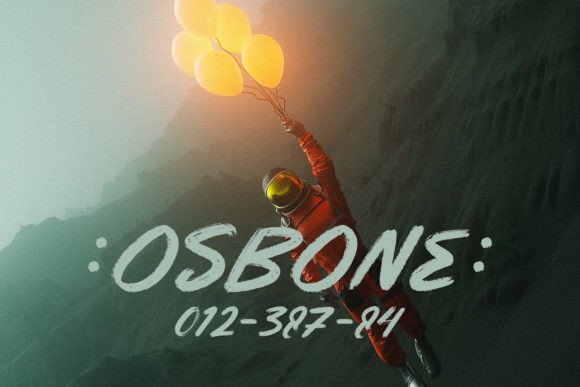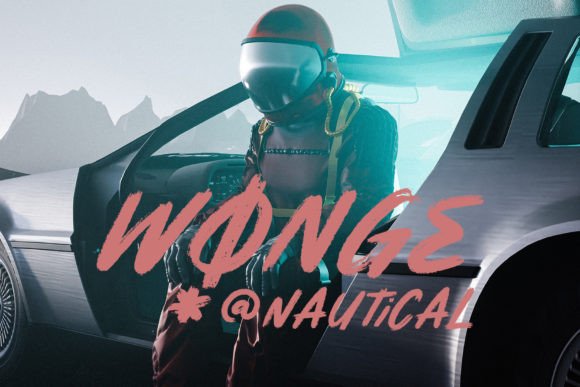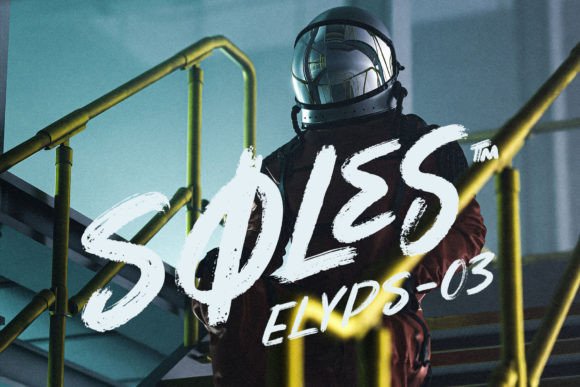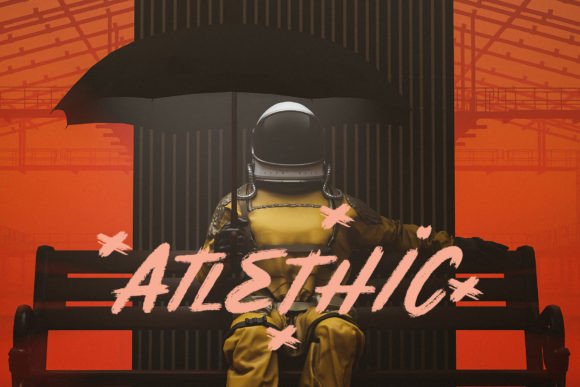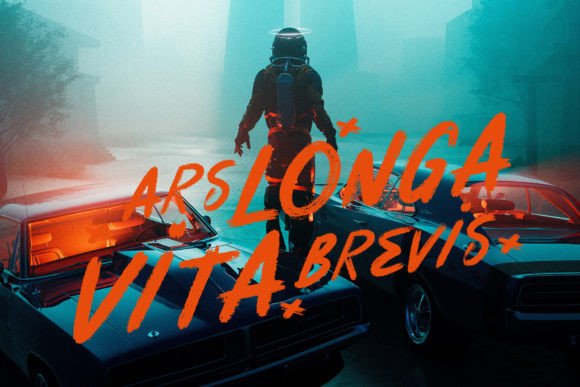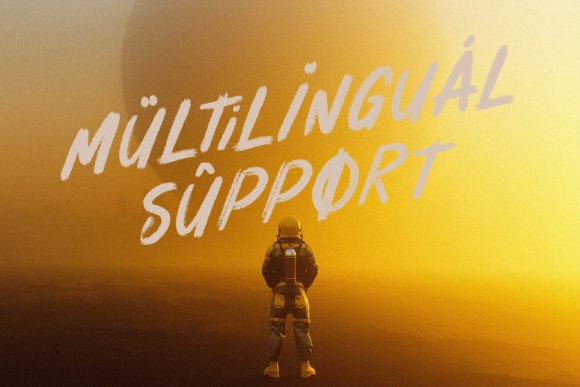
Introducing Astonic Font: The Ultimate Display Font for Creative Projects
Are you tired of using the same old fonts for your creative projects? Look no further than Astonic Font, an extreme bold brush display font that’s sure to take your designs to the next level. With its unique, stylish, and modern-classic design, Astonic Font is the perfect addition to any designer’s font library.
What is Astonic Font?
Astonic Font is a fun and modern typeface that’s masterfully designed to become a true favorite among designers. Its extreme bold brush style gives it a distinctive look that’s perfect for making a statement. Whether you’re working on a headline, billboard, magazine, website, title, poster, branding, t-shirt design, or logo, Astonic Font is the perfect choice.
Key Features of Astonic Font
- Extreme Bold Brush Style: Astonic Font features an extreme bold brush style that’s perfect for making a statement.
- Unique and Stylish Design: Its unique and stylish design makes it perfect for creative projects that require a modern-classic look.
- Versatile: Astonic Font can be used in a variety of design projects, from headlines and billboards to magazines and websites.
- Perfect for Large Point Sizes: Astonic Font was purposely crafted to be used in large point sizes, making it perfect for headlines, billboards, and posters.
- Still Great in Small Point Sizes: Although Astonic Font is designed for large point sizes, it still looks great in small point sizes, making it a versatile addition to any font library.
Why Choose Astonic Font?
So why choose Astonic Font for your creative projects? Here are just a few reasons:
- Elevate Your Designs: Astonic Font has the potential to bring each of your creative ideas to the highest level, making it a great choice for designers who want to take their designs to the next level.
- Perfect for Creative Projects: Whether you’re working on a personal project or a client’s project, Astonic Font is perfect for any creative project that requires a bold and stylish font.
- Add a Touch of Modern-Classicism: Astonic Font’s modern-classic design makes it perfect for designers who want to add a touch of sophistication to their designs.
How to Use Astonic Font
Using Astonic Font is easy. Here are a few tips:
- Use it for Headlines: Astonic Font is perfect for headlines, whether you’re working on a magazine, website, or poster.
- Pair it with Other Fonts: Astonic Font can be paired with other fonts to create a unique and stylish design.
- Experiment with Different Sizes: While Astonic Font is designed for large point sizes, it’s still great in small point sizes. Experiment with different sizes to find the perfect fit for your design.
In conclusion, Astonic Font is an incredible asset to any designer’s font library. Its extreme bold brush style, unique and stylish design, and versatility make it perfect for a wide range of creative projects. Whether you’re working on a headline, billboard, magazine, website, title, poster, branding, t-shirt design, or logo, Astonic Font is the perfect choice. So why wait? Download Astonic Font today and take your designs to the next level!